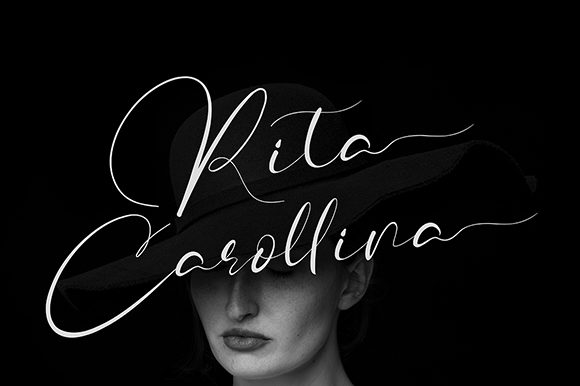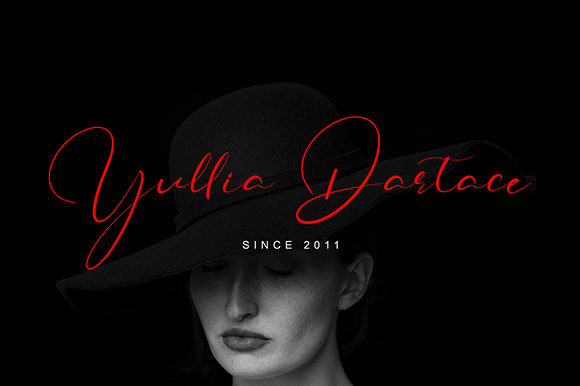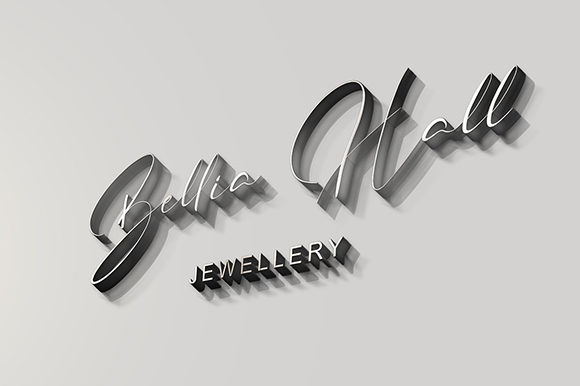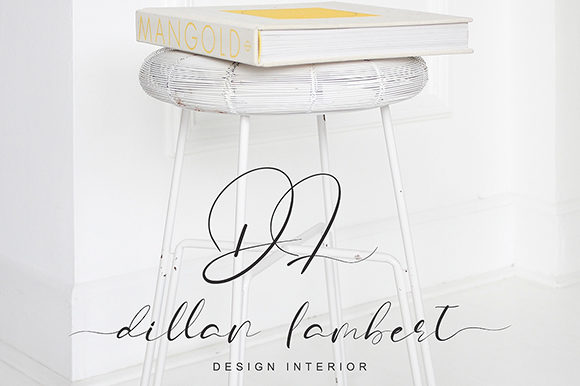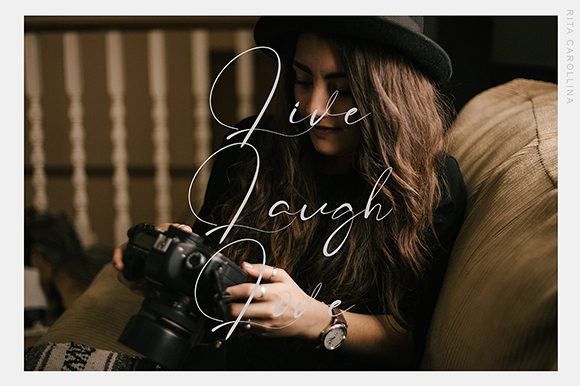
Rita Carollina Font
About Rita Carollina Font
Rita Carollina is a modern and charming handwritten font with a dark twist. Fall in love with its romantic elegance.